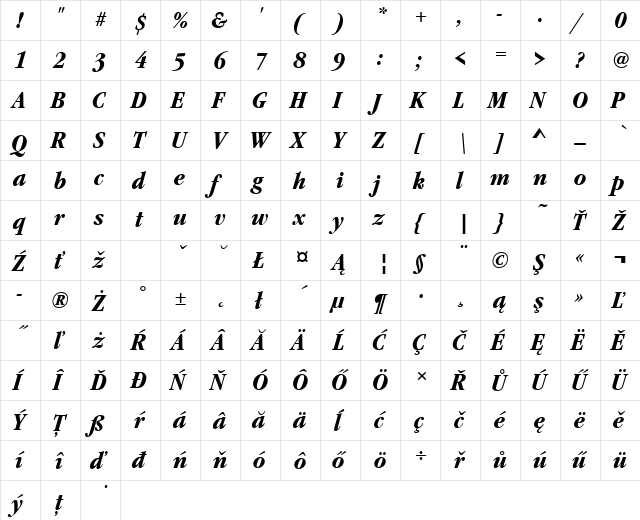
GaramondItcTEECon Bold Italic Font Preview
GaramondItcTEECon Bold Italic
GaramondItcTEECon Bold Italic Font Details
Design Context for GaramondItcTEECon Typeface
GaramondItcTEECon offers clean, dependable letterforms without strong stylistic allegiance, making it a practical choice for designers who need flexibility. The slanted form adds forward momentum and visual energy. Its bold stroke weight gives it real presence on the page.
Pro Tip: Try GaramondItcTEECon for annotation and caption copy alongside an upright companion — the contrast in angle creates a dynamic but ordered typographic system.